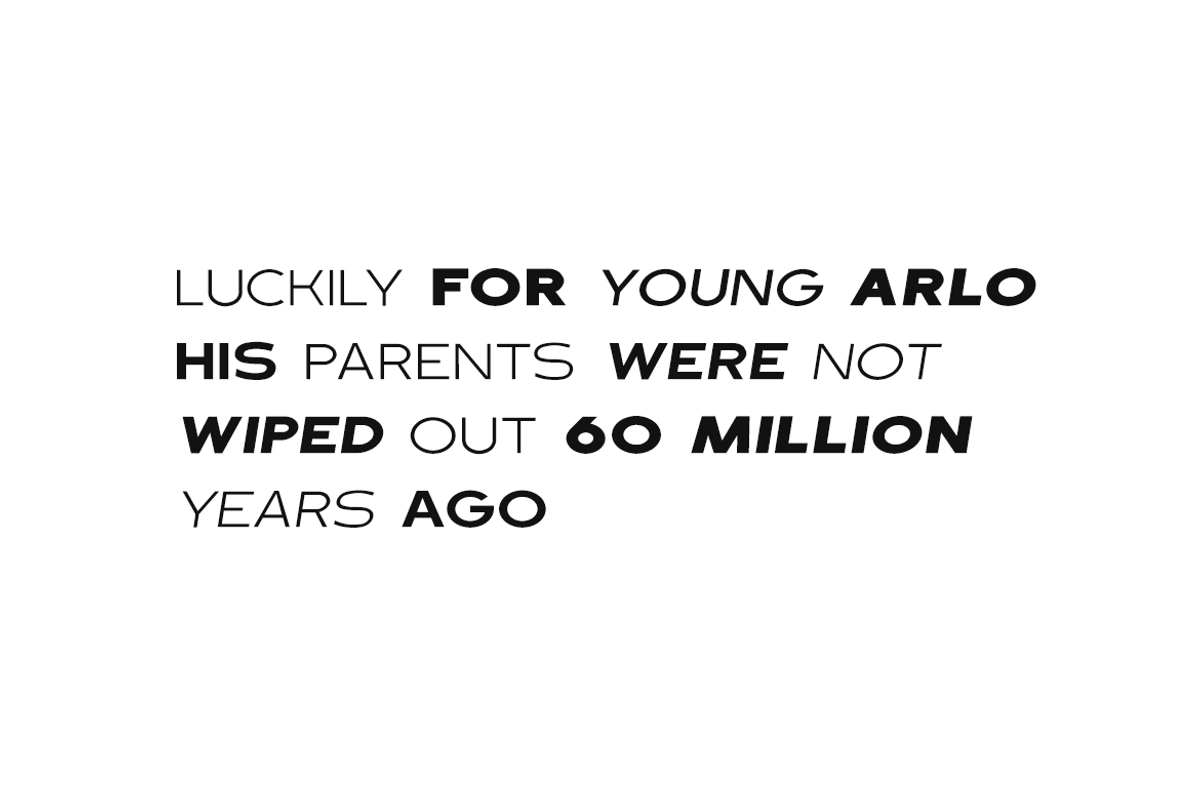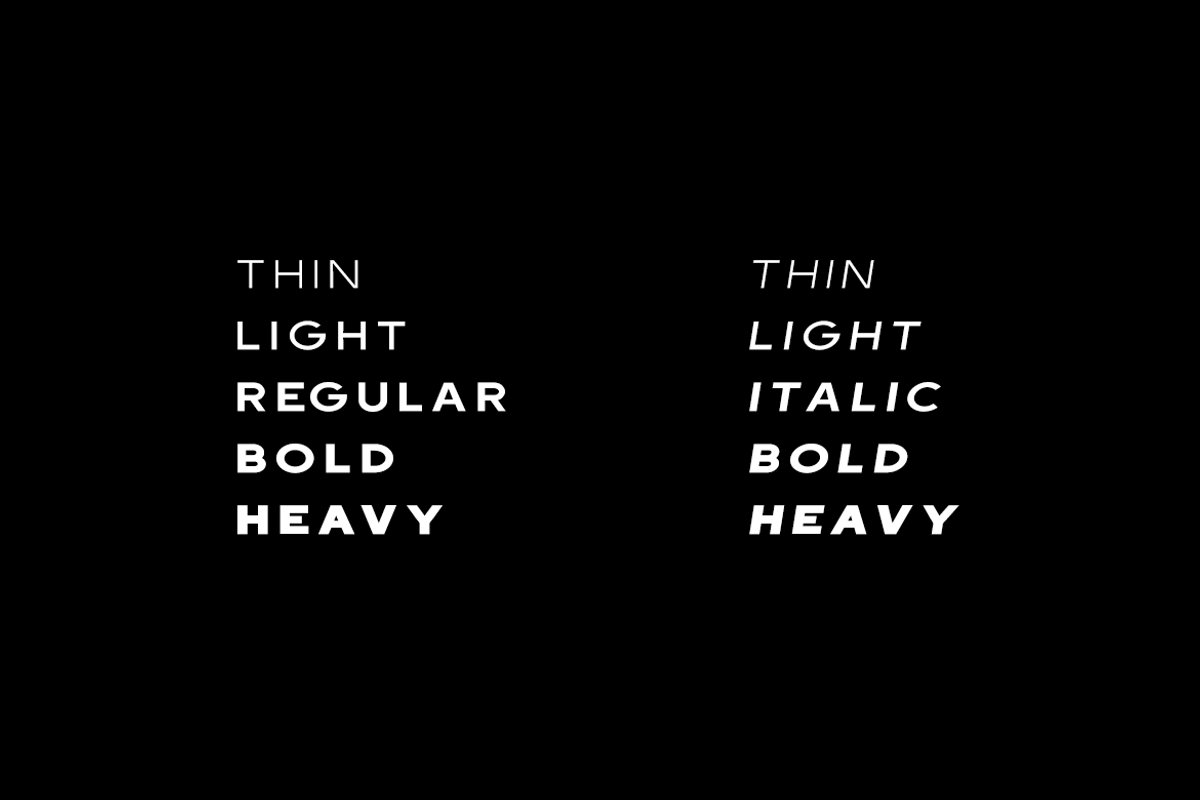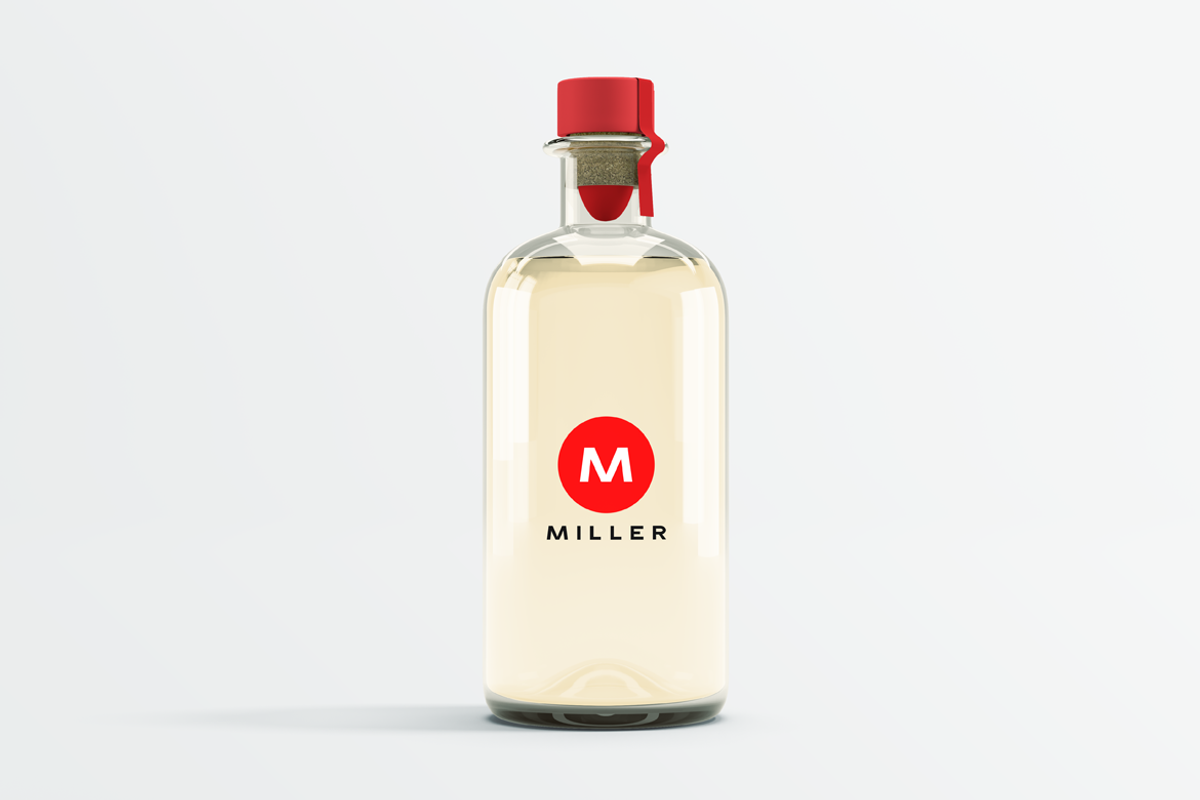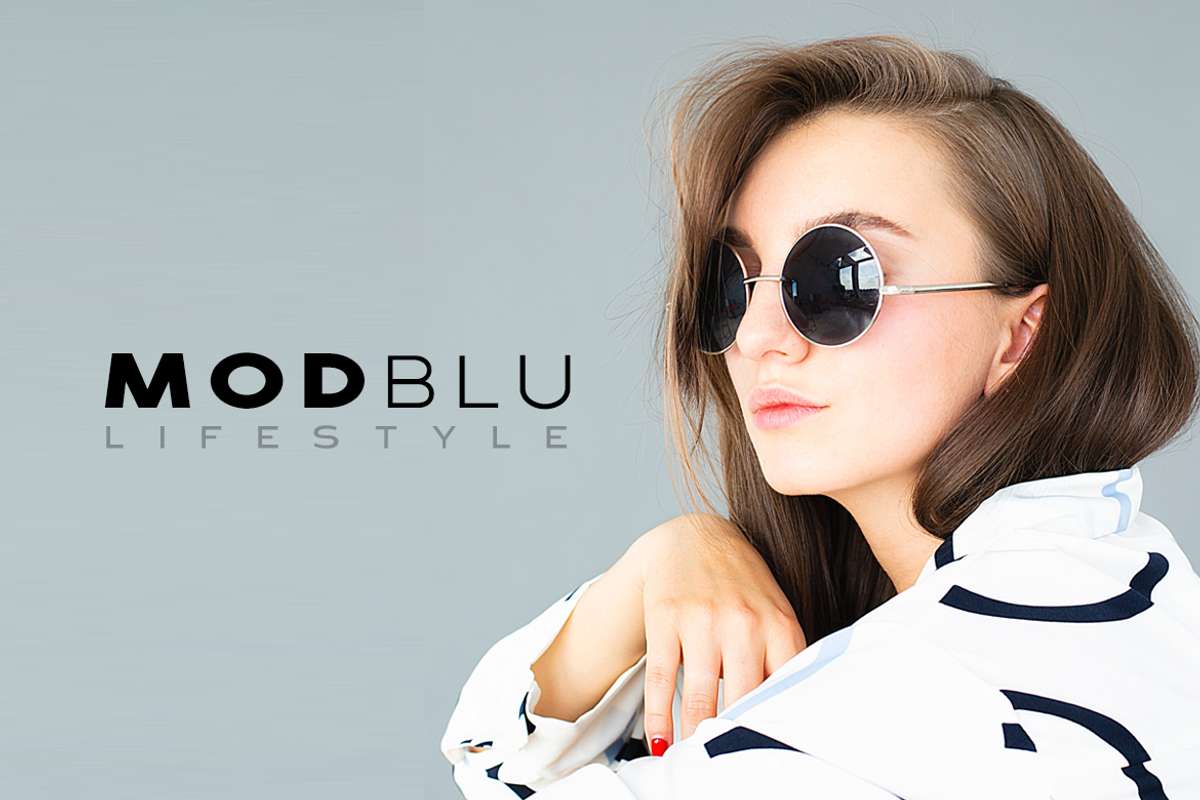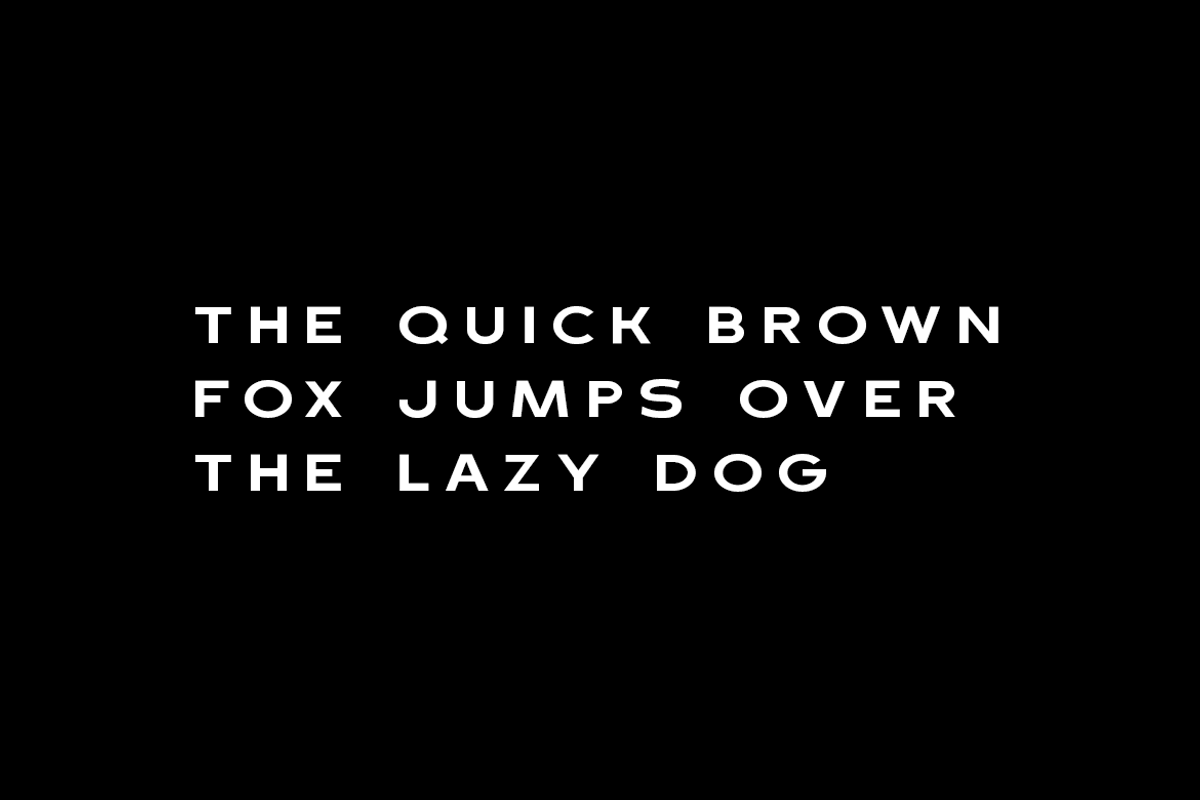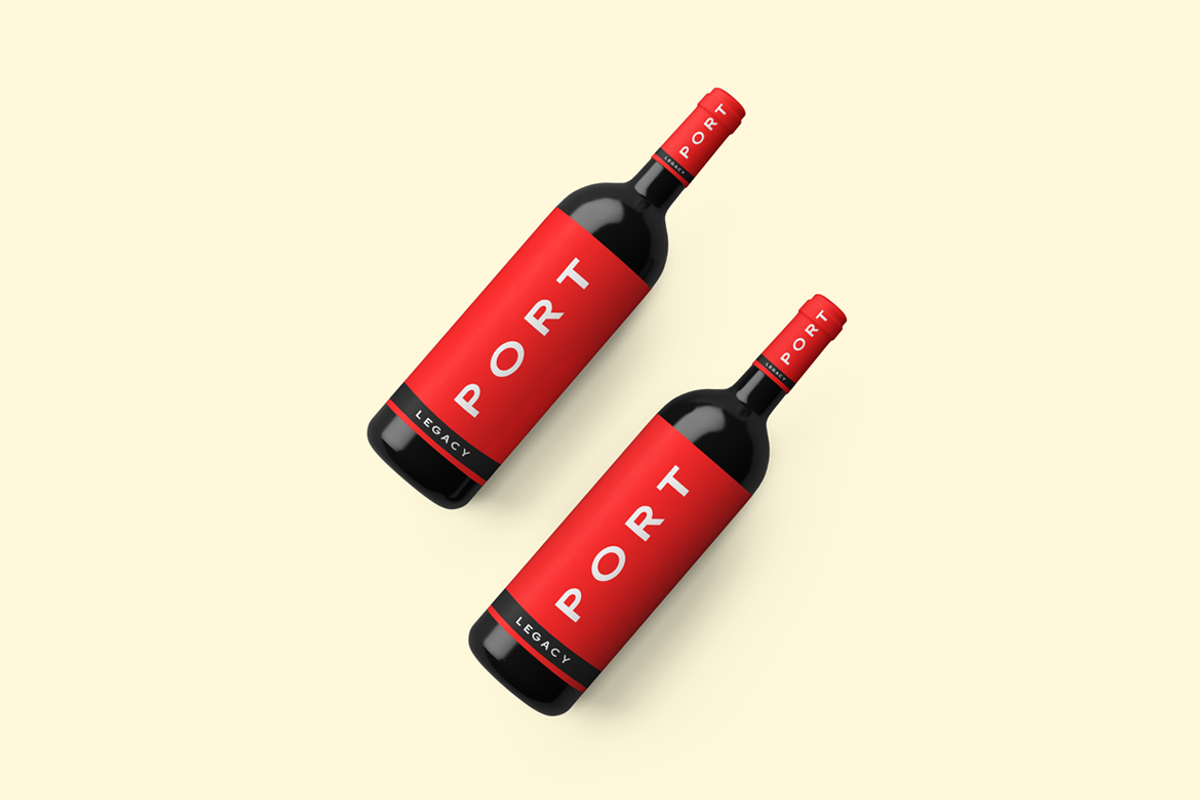
DUBLIN - Display / Headline Typeface
DUBLIN is a minimal and modern typeface for headlines, big text, branding, logotypes & display usage. This all-caps typeface is perfect for creating outstanding logos, promotional content and marketing graphics that can really grab attention from your visitors. Please see the examples shown above to get an idea about the capability of this typeface.
DUBLIN comes with 5 weights (Thin / Light / Normal / Bold / Heavy) as well as Italic versions of all 5 weights. The pack contains OTF, TTF and Web Fonts (all EOT, SVG, TTF, WOFF, WOFF2 everything is included).